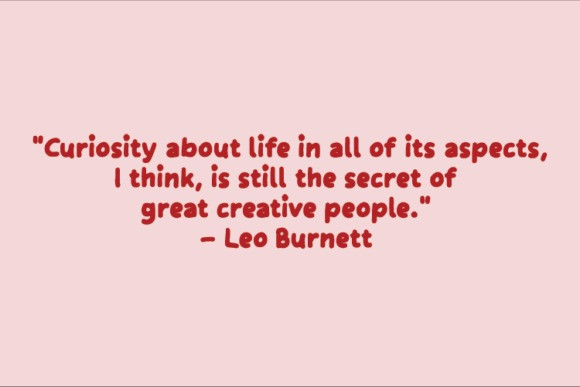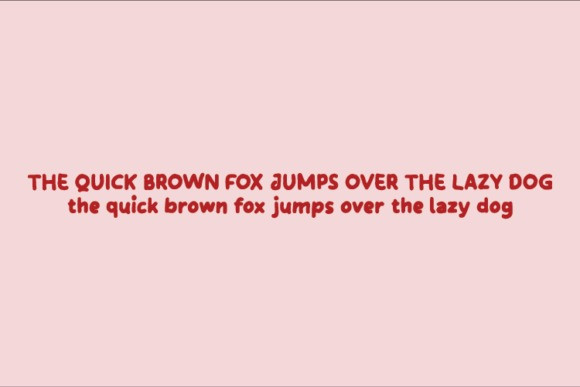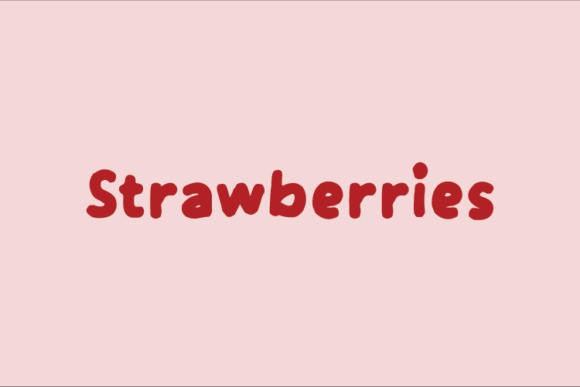
Candy Love Display Font
Candylove is a fun and unique decorative font. It features a sweet style that makes it perfect for greeting cards, crafts, logos, and much more!